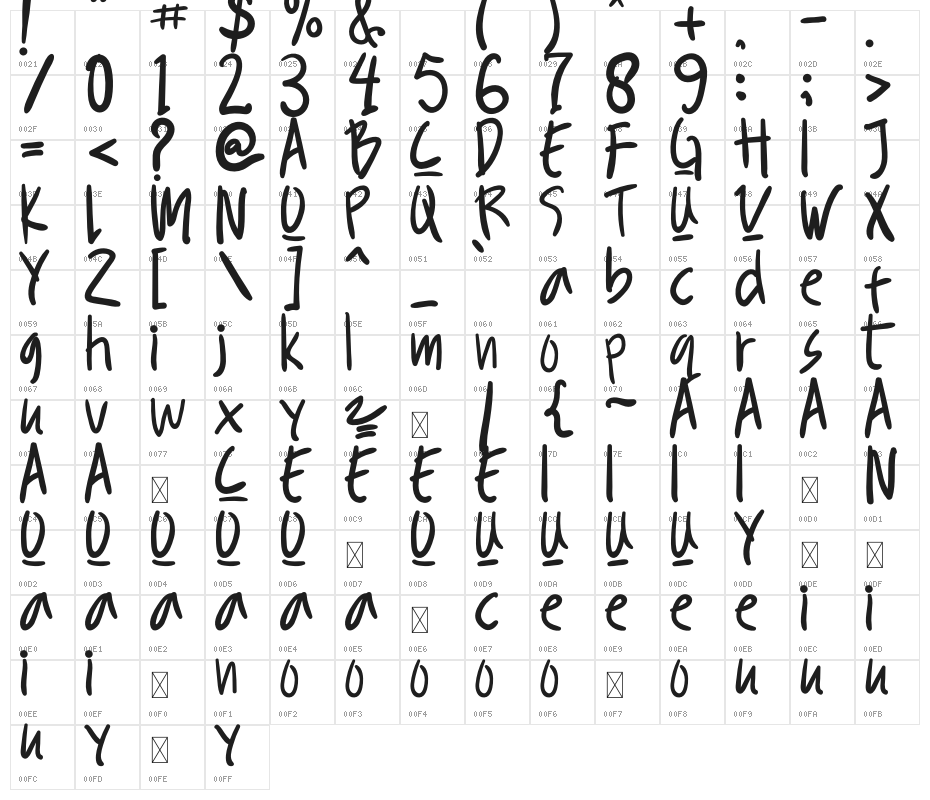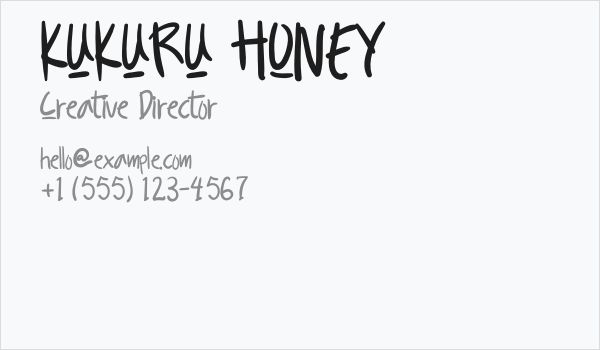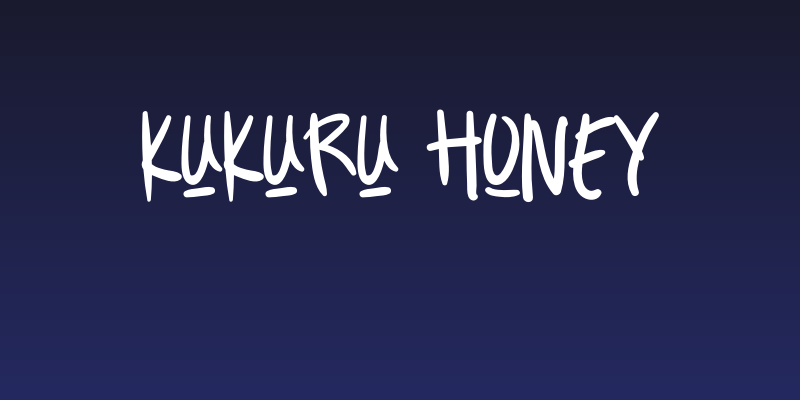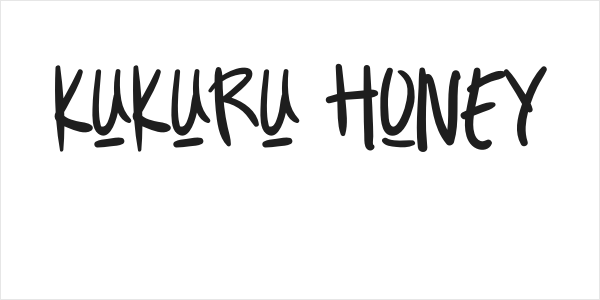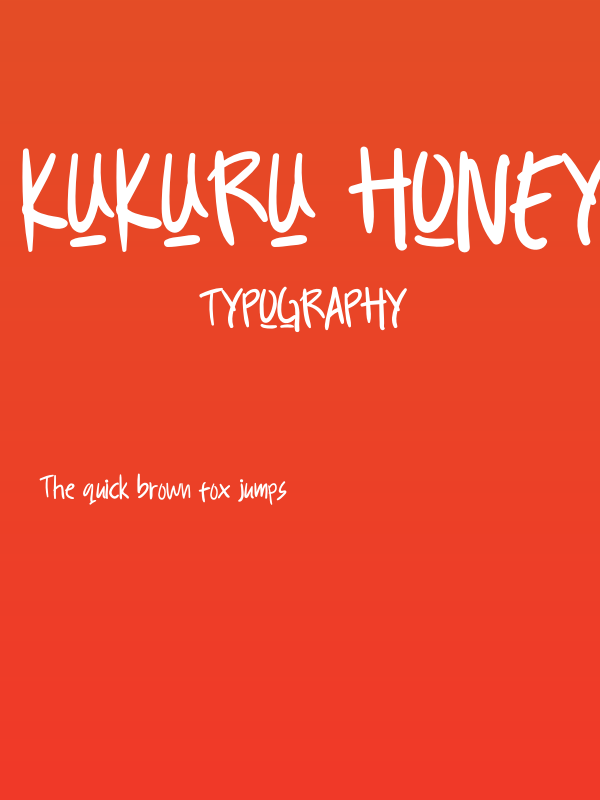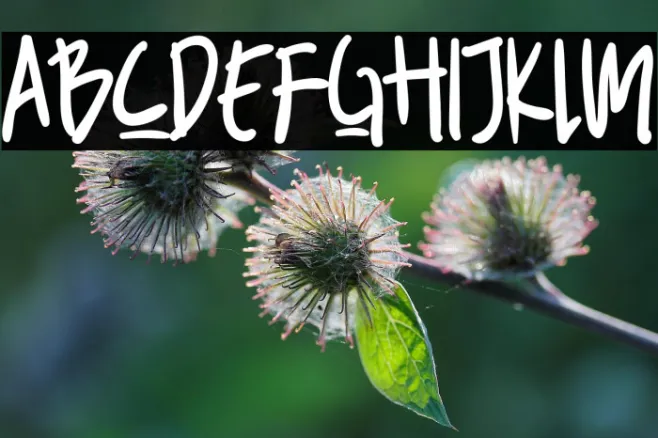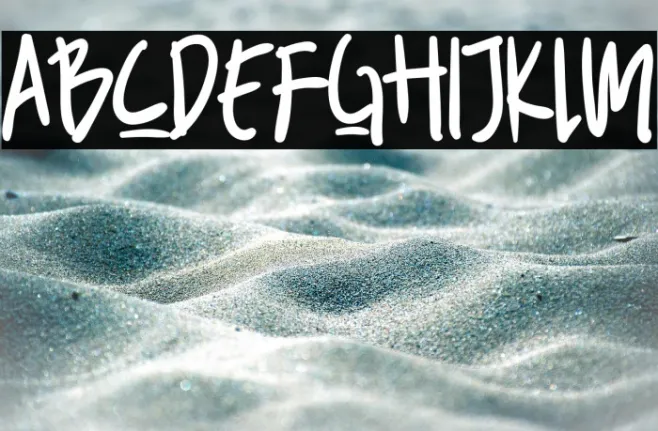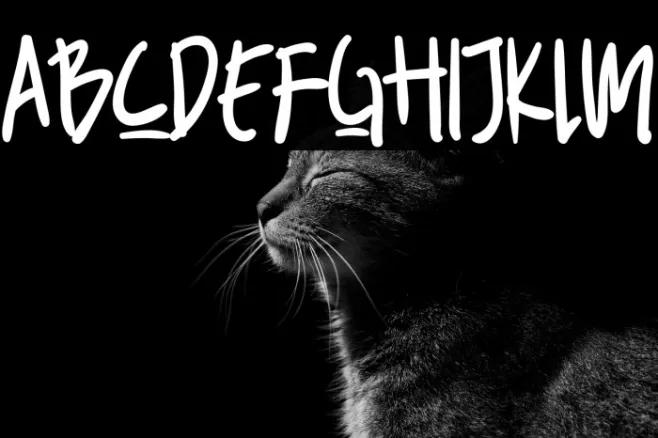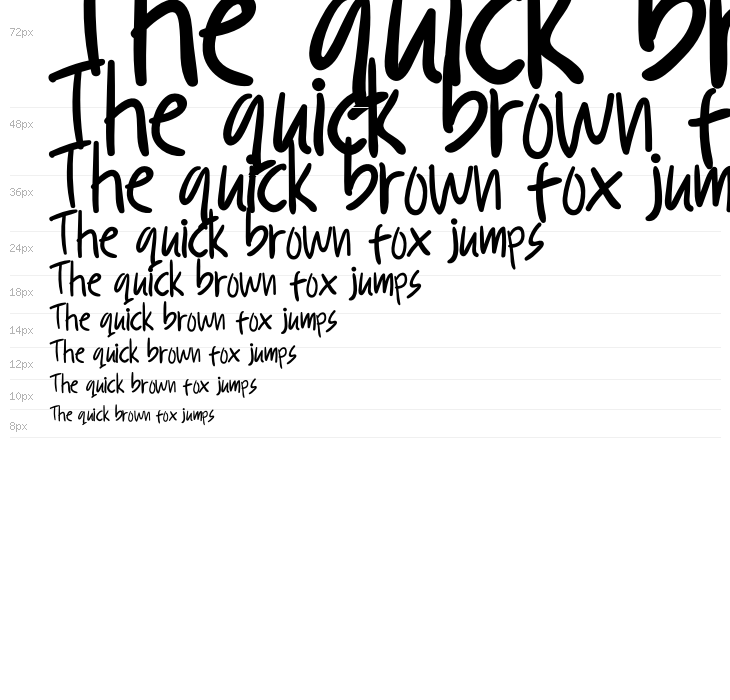
KUKURU HONEY Font
KUKURU HONEY Description
This font exudes a playful and energetic vibe, characterized by its bold and slightly irregular strokes. The letters are hand-drawn, giving them a casual and approachable feel. The uppercase letters are tall and narrow, while the lowercase letters maintain a consistent flow with a slight slant, adding to the dynamic appearance. The numbers are rounded and maintain the same playful style, ensuring consistency across the character set. Special characters are creatively integrated, matching the overall whimsical aesthetic. This font is perfect for projects that require a fun and informal touch.
| Proposed Projects | Ideal for children's books, playful branding, casual event posters, and creative social media graphics. |